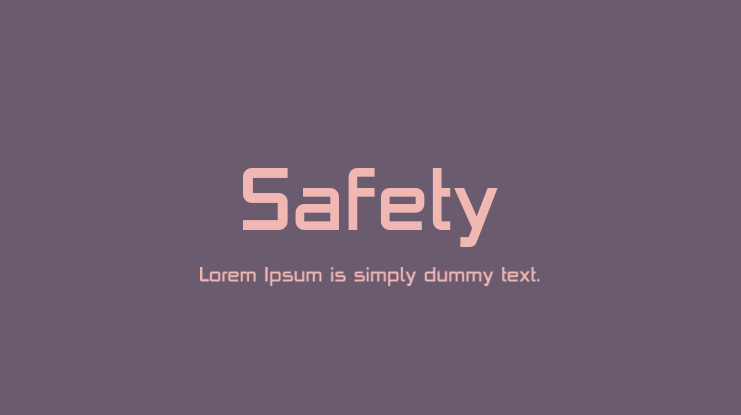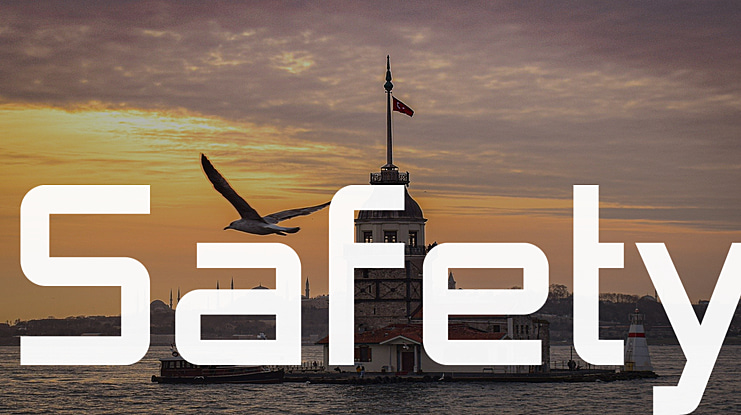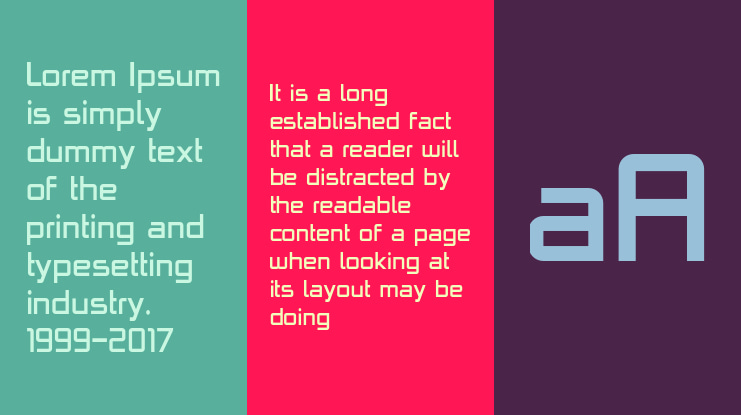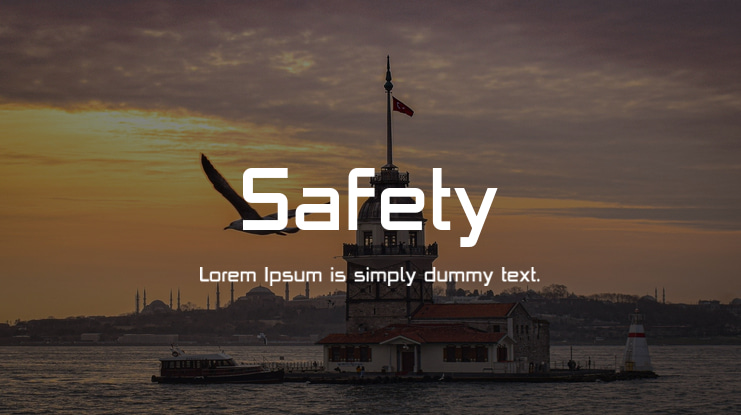
Safety Font
Safety – A squarish technical looking font, best suited for labeling objects or warning signs, designed by Christoph Thürsam. Result of a short project (https://myfontproject.wordpress.com/) of 15 days in Fachbereich Design Dessau / Department of Design.